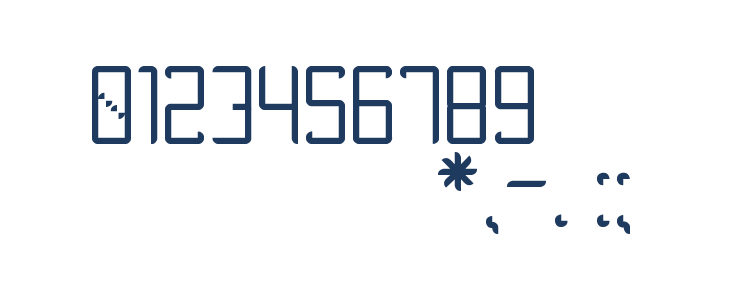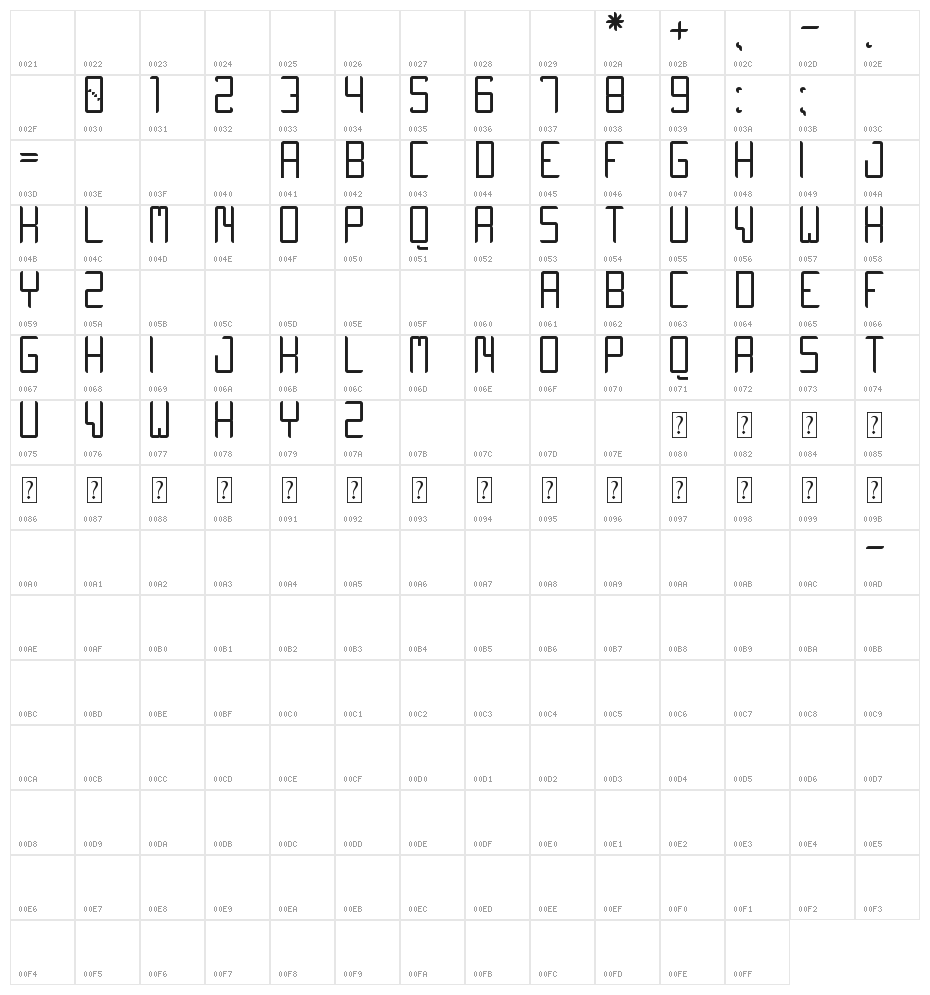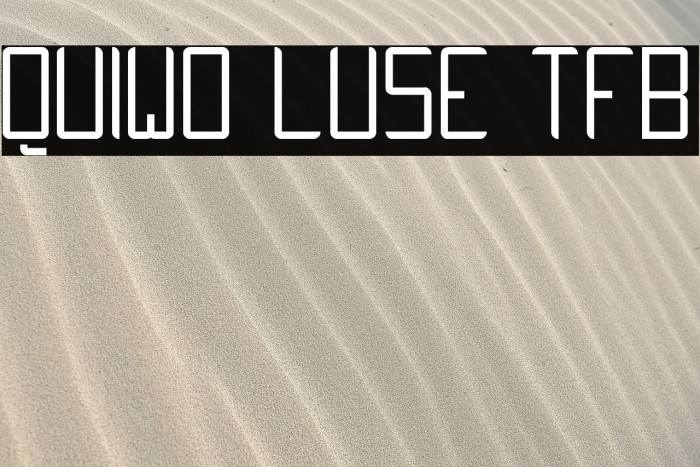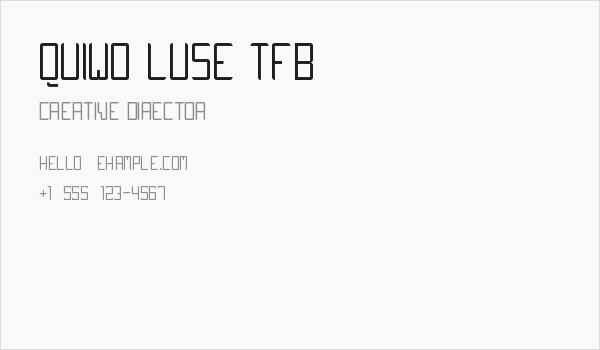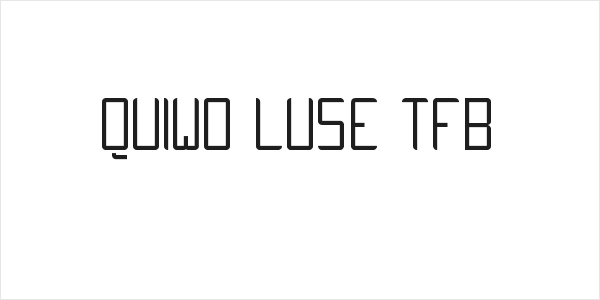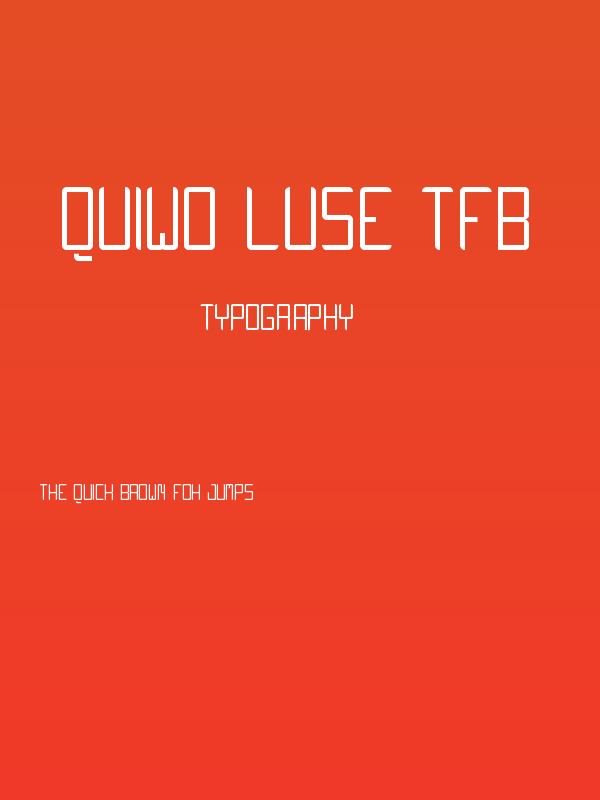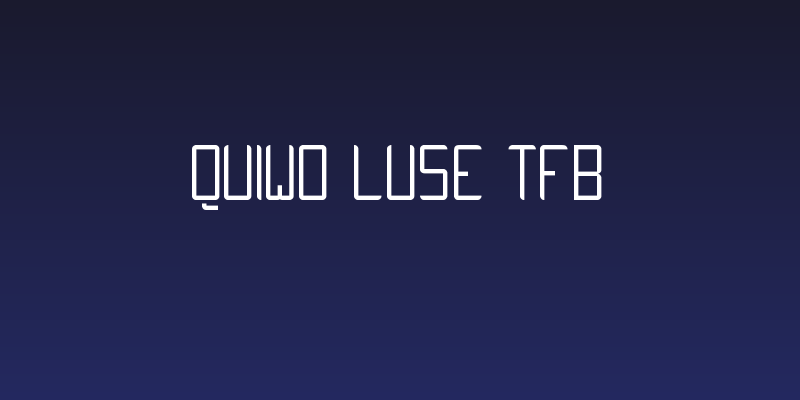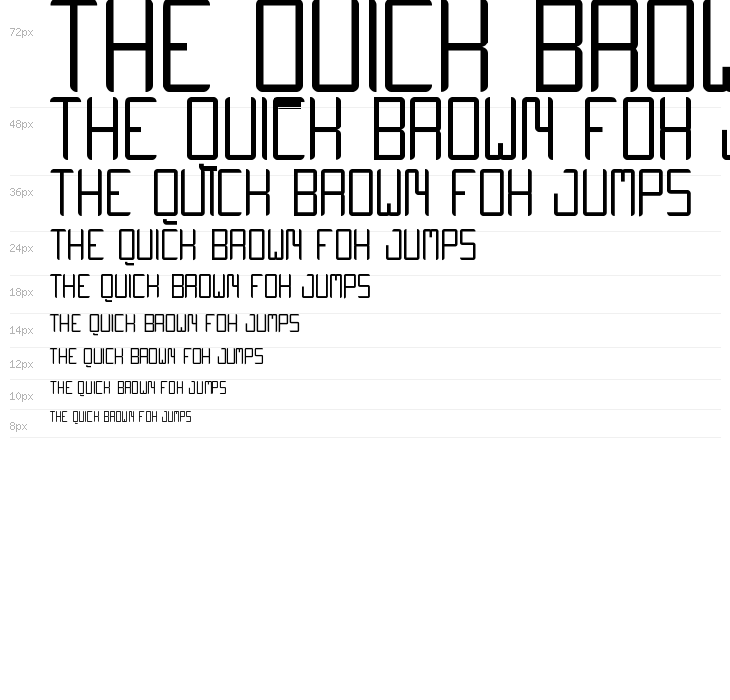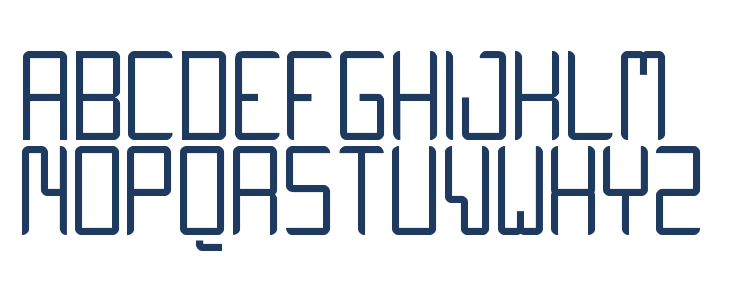
QUIWO LUSE TFB Font
QUIWO LUSE TFB Description
This font features a modern, geometric design with a distinct digital aesthetic. The characters are composed of straight lines and rounded corners, creating a futuristic and tech-inspired look. The uppercase and lowercase letters maintain a consistent height, contributing to a uniform appearance. The numbers and special characters follow the same design principles, ensuring cohesion across all elements. The font's clean lines and minimalistic style make it suitable for contemporary projects that require a sleek and professional touch.
| Use Case | Headlines, Logos, Digital Interfaces |
| Proposed Projects | Ideal for technology branding, digital interfaces, futuristic posters, and modern graphic design projects. |